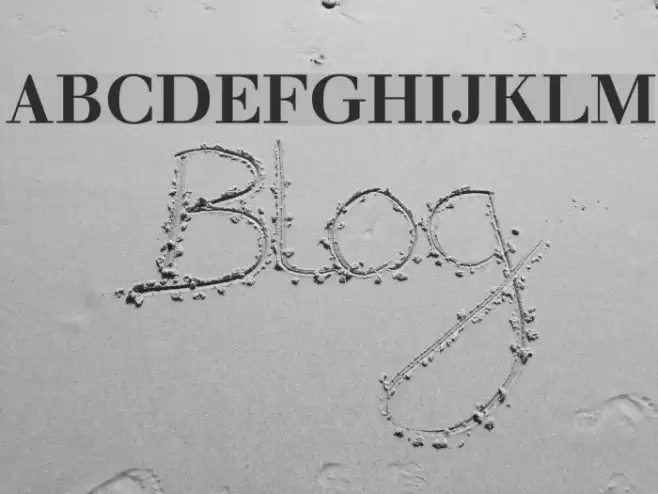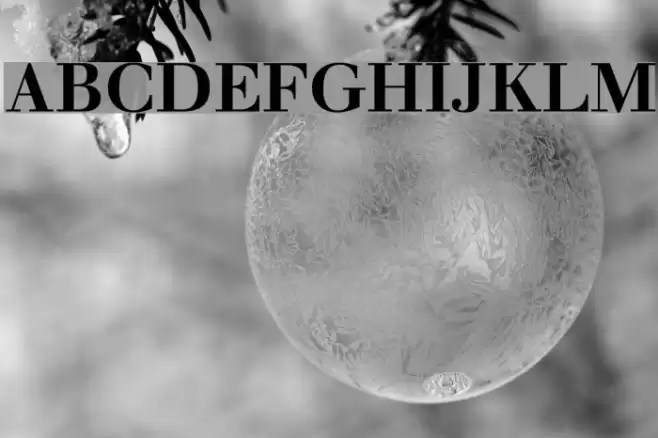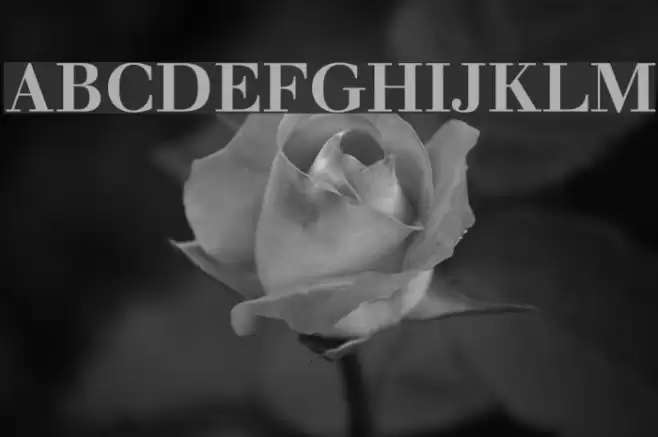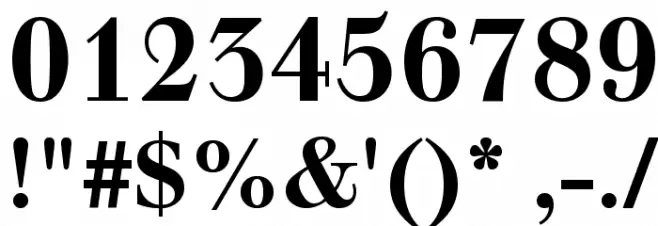
Justus Bold Font
Justus Bold Description
This font exhibits a bold and authoritative presence, characterized by its thick, strong strokes and high contrast between thick and thin lines. The serifs are pronounced, adding a classic and formal touch to the overall design. The uppercase letters are tall and commanding, while the lowercase letters maintain a consistent and balanced appearance. The numerals are clear and legible, making them suitable for various applications. Special characters are well-defined, enhancing the font's versatility. The overall style is a blend of traditional and modern elements, making it suitable for both contemporary and classic design projects.
A bold serif font with high contrast and classic elegance from Serif fonts.
- Proposed Projects: Ideal for headlines, book covers, branding, and editorial design.
- Contrast: High
- Overall Style: Classic